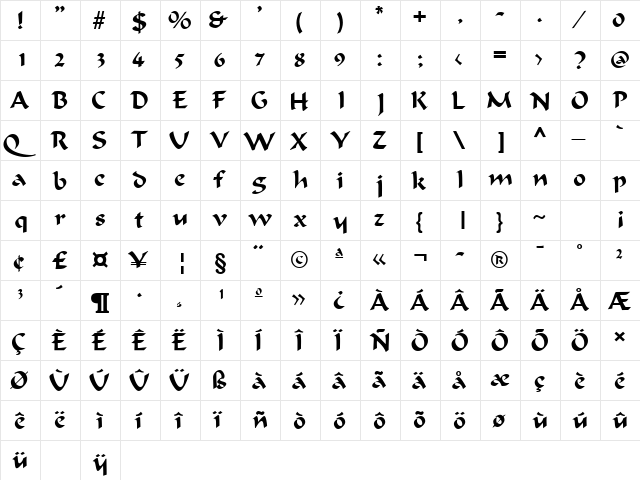
RococoSSK Regular
Design Context for RococoSSK Typeface
RococoSSK is a composed and adaptable typeface that performs quietly and consistently across a wide range of design contexts.